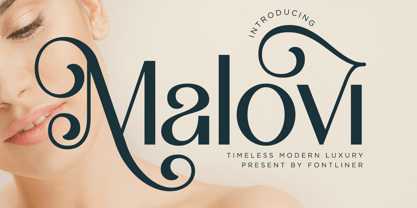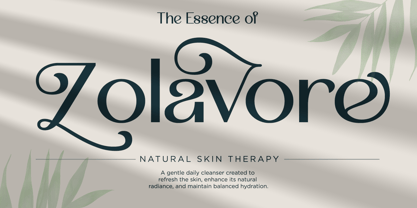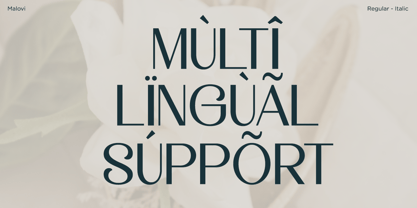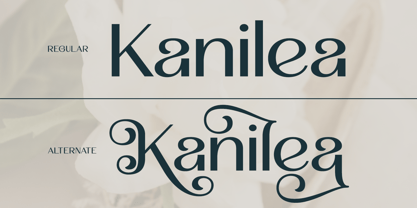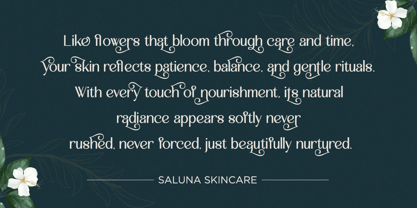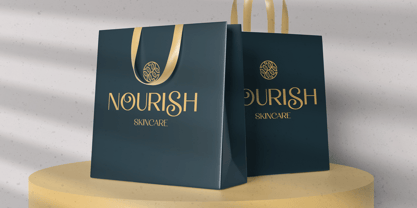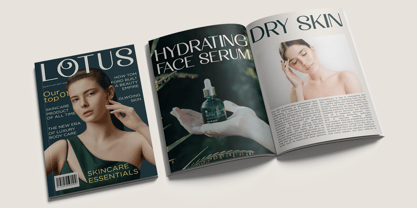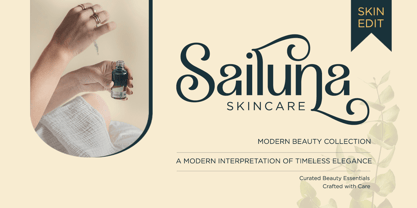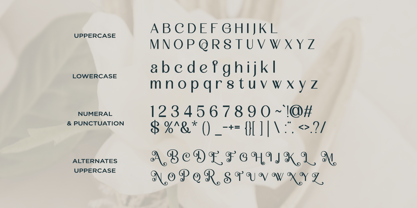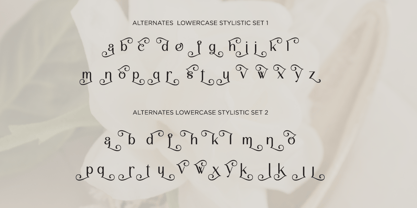
Malovi
par Font Liner
La famille de polices Malovi a été conçue par Ghina Luthfiarieska et publiée par Font Liner. Malovi contient 2 styles et options de package familial. En savoir plus sur cette famille
Malovi is a timeless modern luxury serif font designed to infuse elegance and refined character into high-end visual projects. Drawing inspiration from classic beauty with a contemporary twist, Malovi showcases graceful curves, decorative swashes, and sophisticated letterforms that instantly elevate any design. Crafted specifically for designers in fashion, branding, and editorial sectors, Malovi strikes the perfect balance between decorative flair and readability. Its elegant ligatures and stylish details make it ideal for logos, magazines, invitations, beauty branding, and premium marketing materials that require a luxurious impression. Whether utilized for headlines, branding identities, or high-impact display typography, Malovi exudes a confident and exclusive feel. This font is engineered to help your work stand out in competitive creative markets while maintaining timeless appeal and professional versatility. Thank You for your Visit ! FontLiner
Concepteurs: Ghina Luthfiarieska
Fonderie: Font Liner